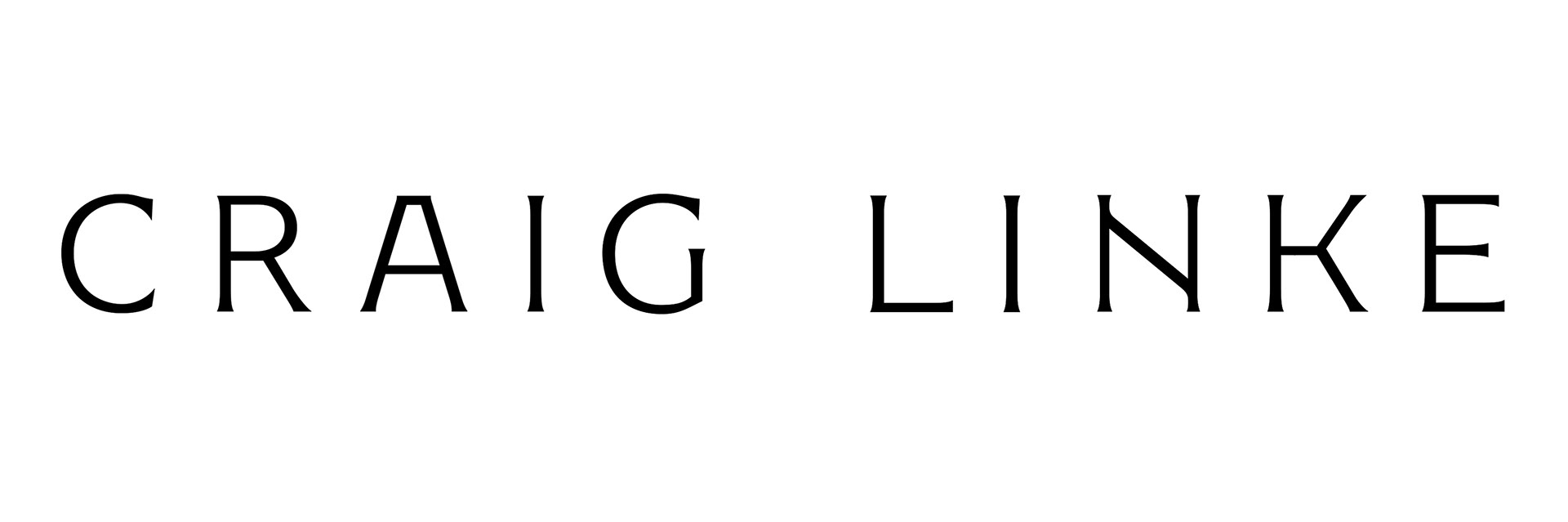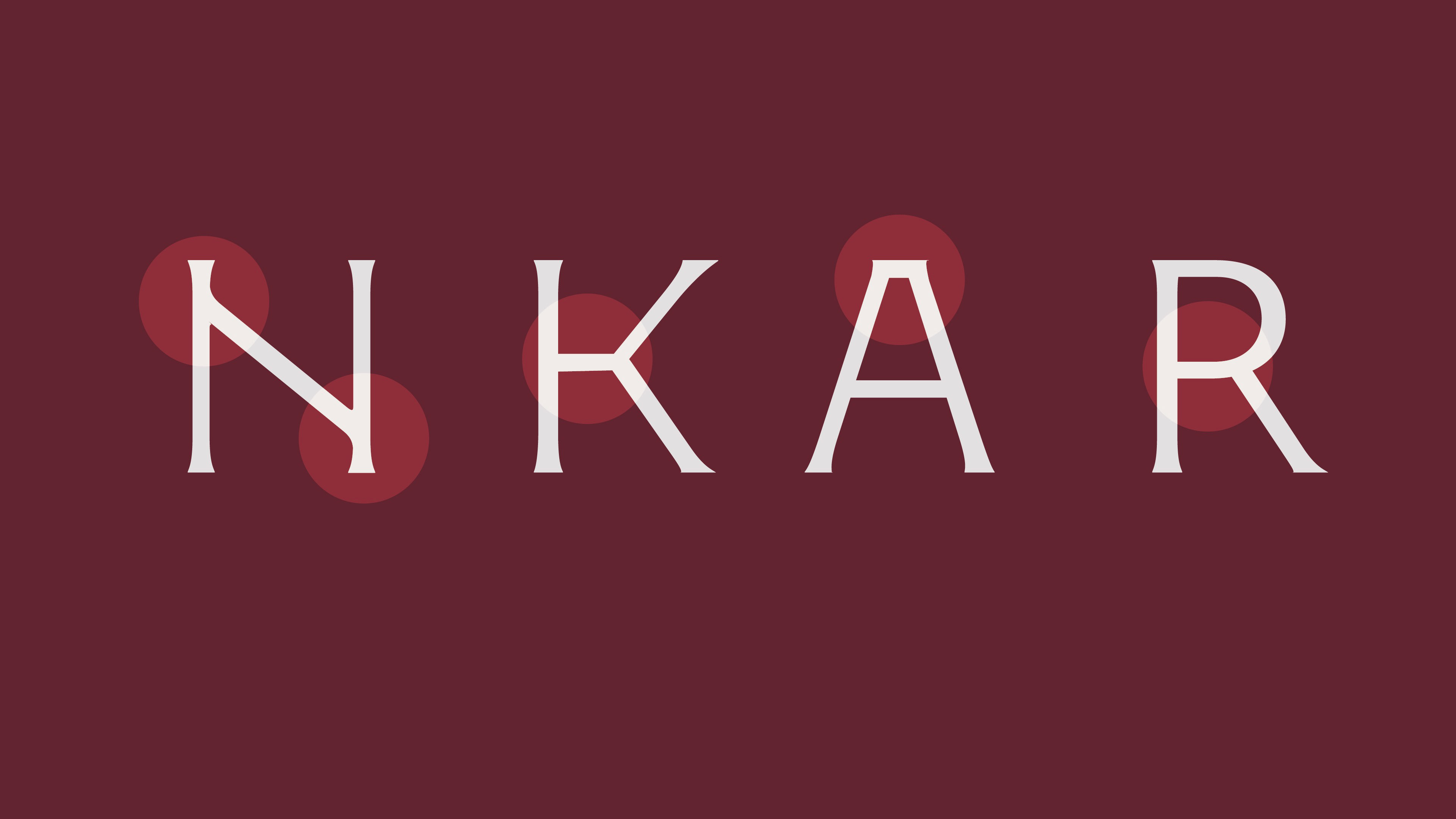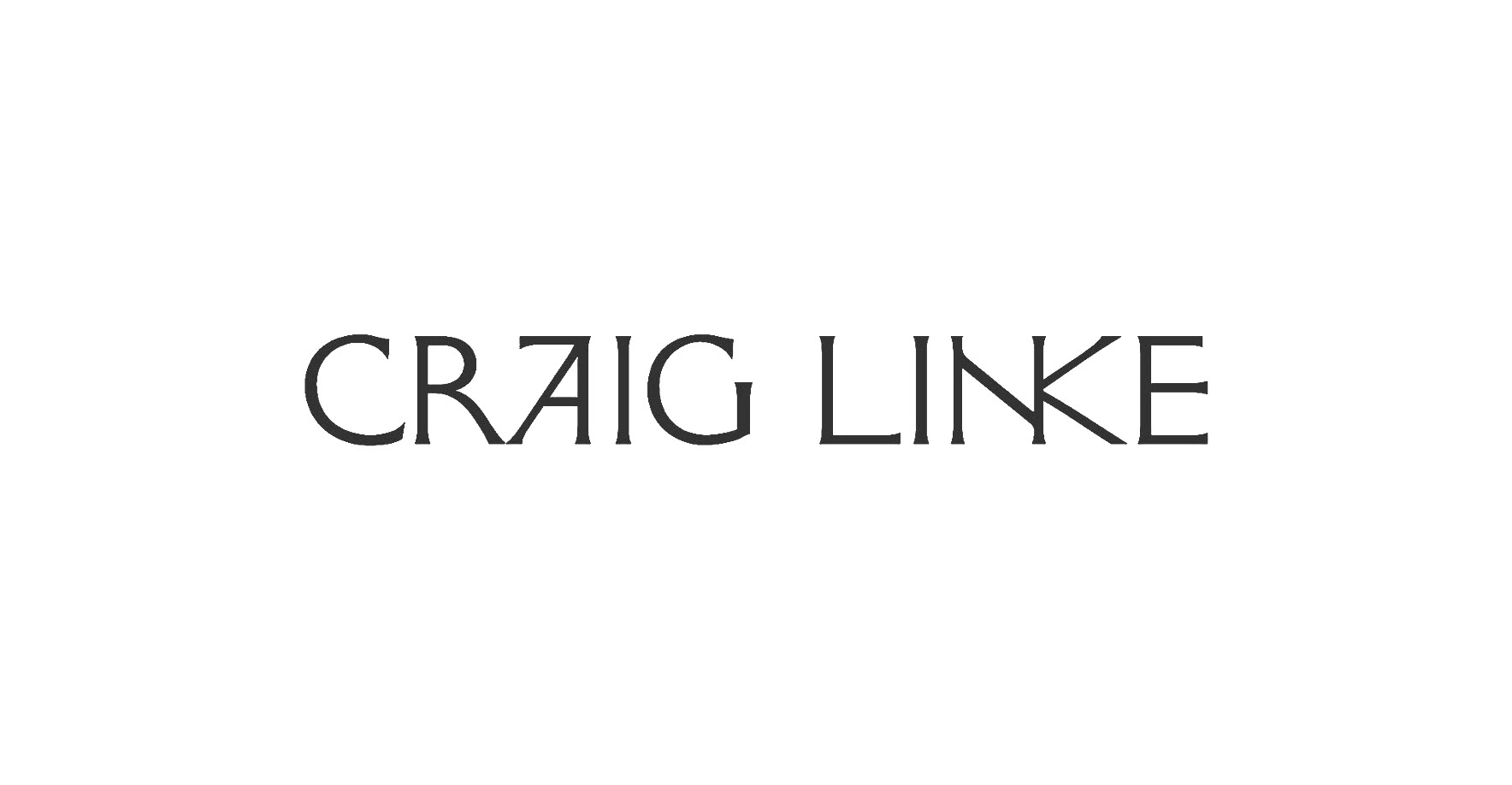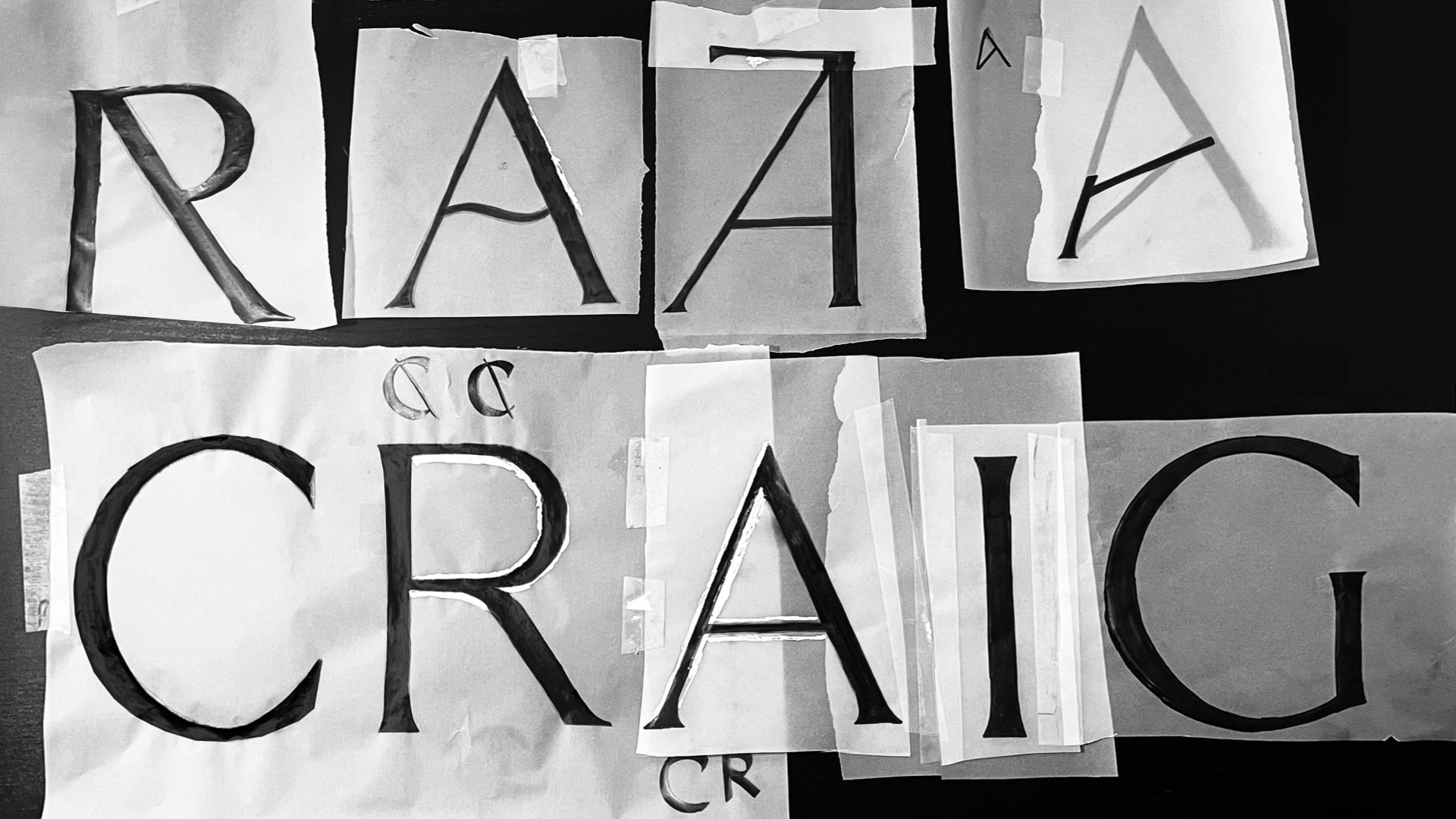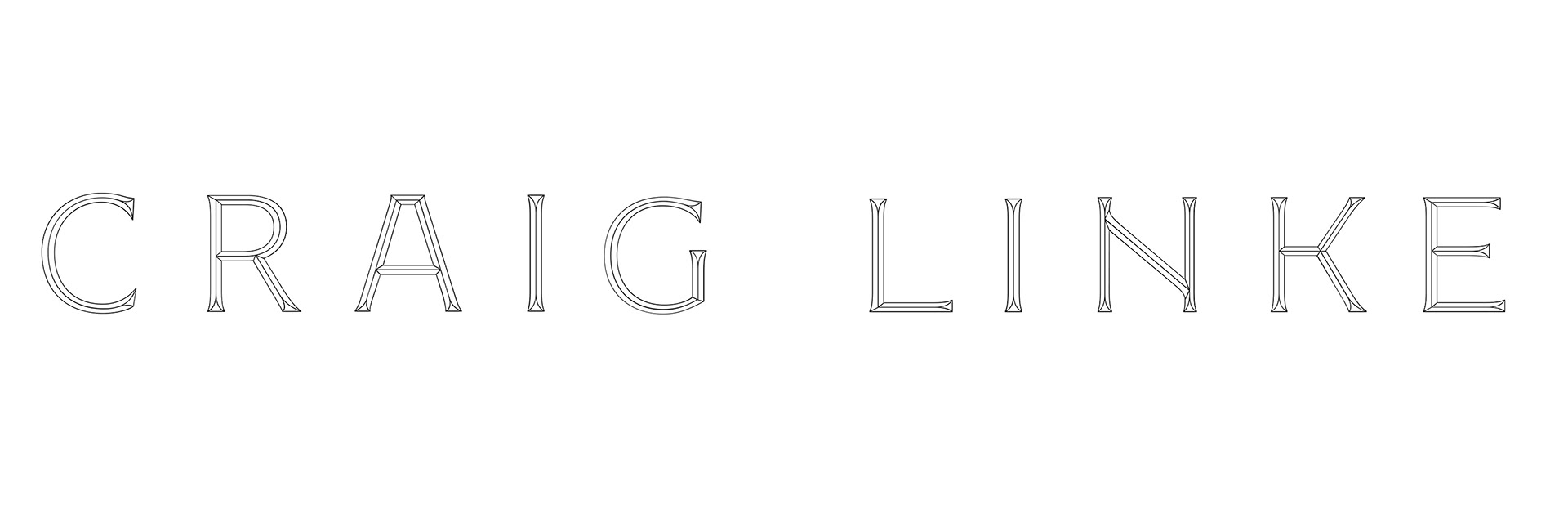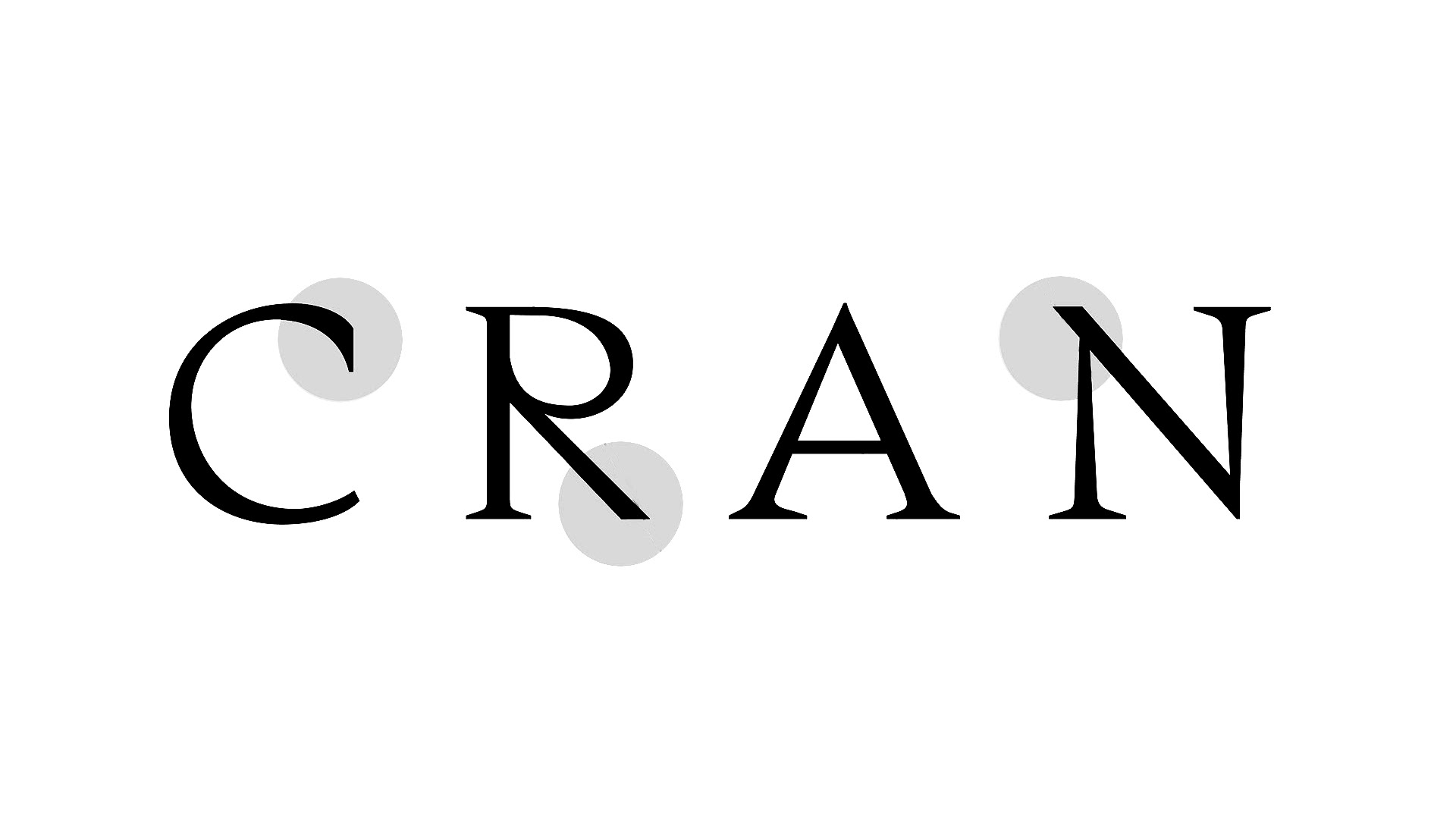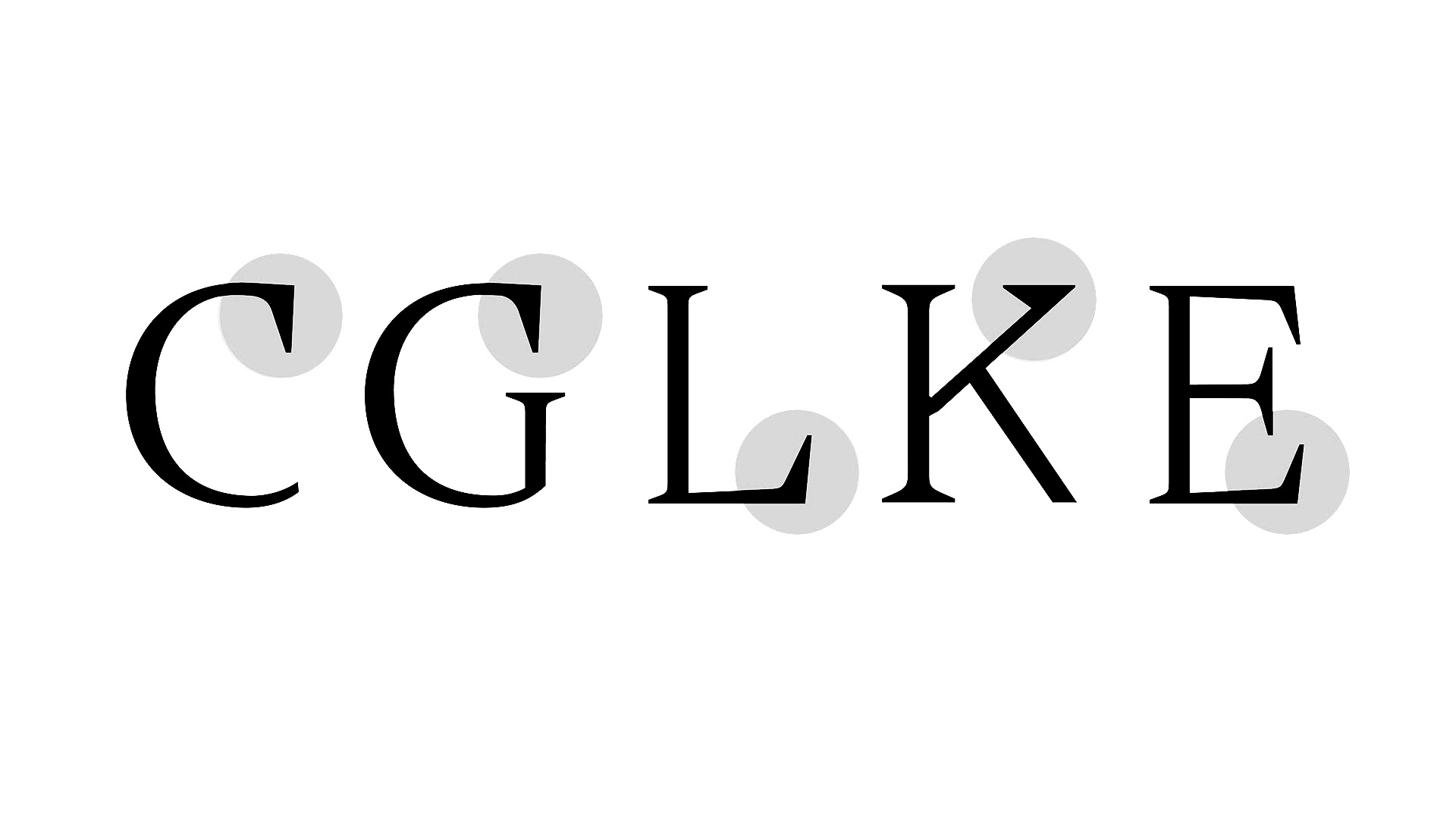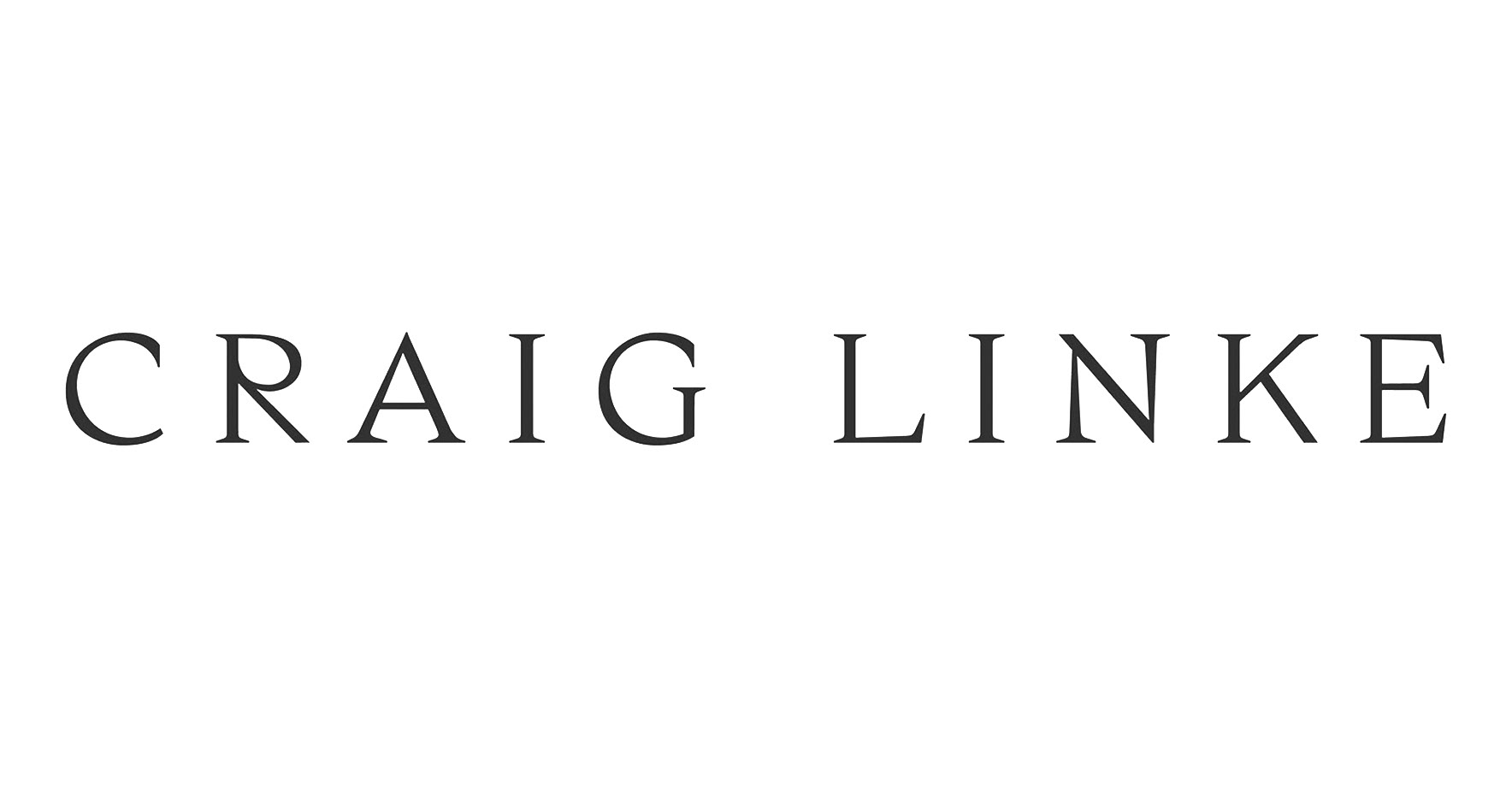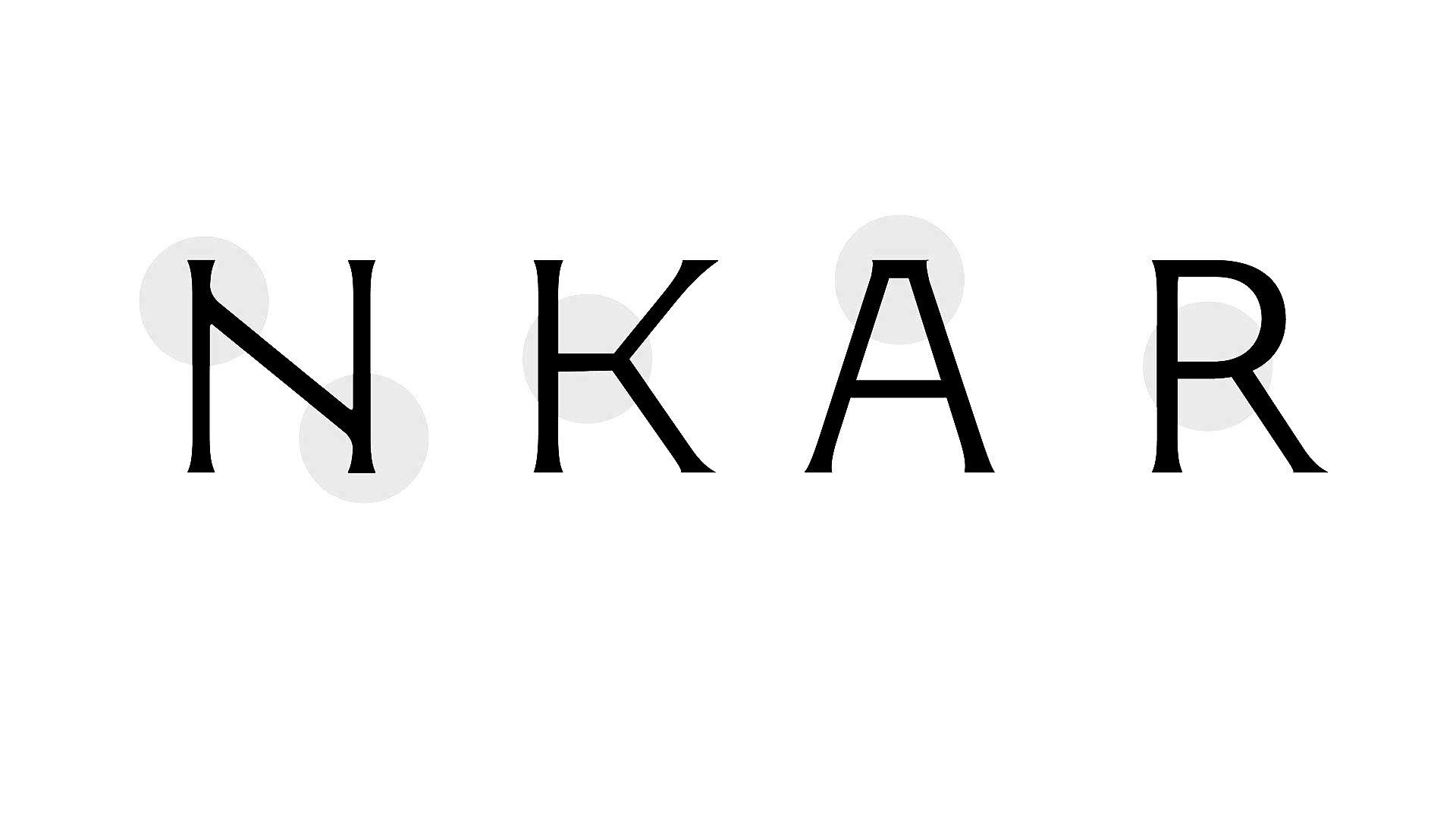
Approved concept
TYPOGRAPHIC DETAILS
approved concept. outlined version
UNAPPROVED CONCEPT 01. Unusual shapes and proportions.
UNAPPROVED CONCEPT 02. Calligraphy inspired.
UNAPPROVED CONCEPT 02. CALLIGRAPHIC DETAILS.
UNAPPROVED CONCEPT 02. alternative DETAILS.
VISUAL IDENTITY for CRAIG LINKE